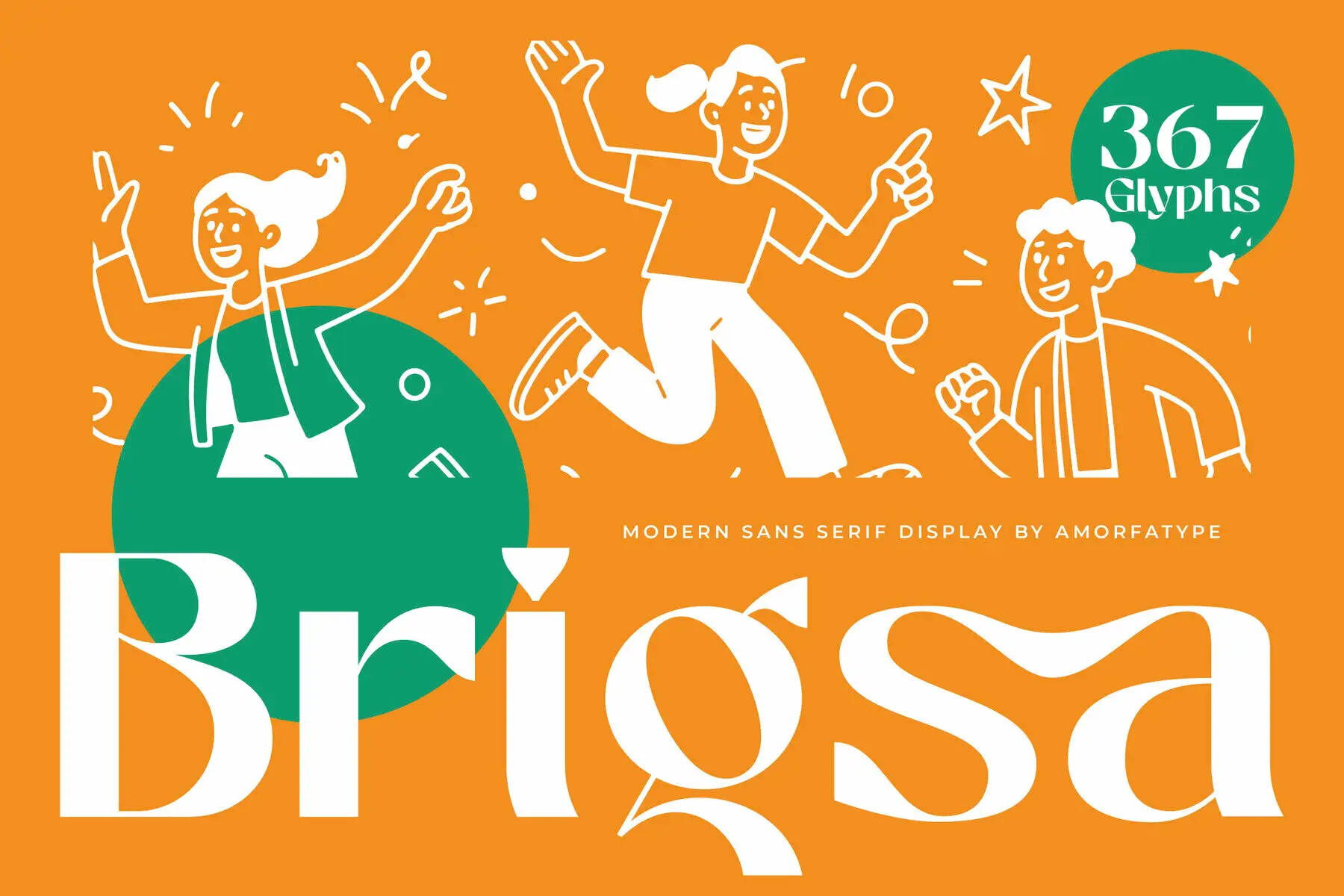
Brigsa Font
Brigsa is a stylish sans serif display font crafted to make a bold impression. Its clean lines and geometric harmony deliver clarity and strength, creating an authoritative visual statement. Enhanced for impact, Brigsa excels in visual identities that require both elegance and authority. Perfect for branding, editorial headlines, web design, and contemporary packaging, Brigsa provides versatility across digital and print platforms. Its precise structure and minimalist aesthetic suit bold display settings and refined design projects, making it the ideal choice for a modern sans serif with confidence.Brigsa: Modern Sans Serif Display Font